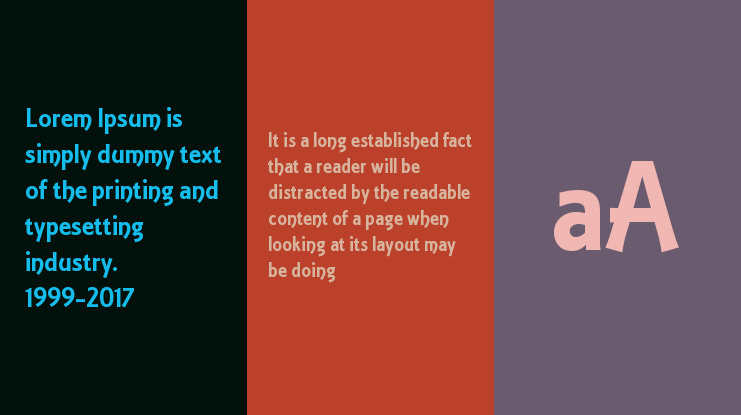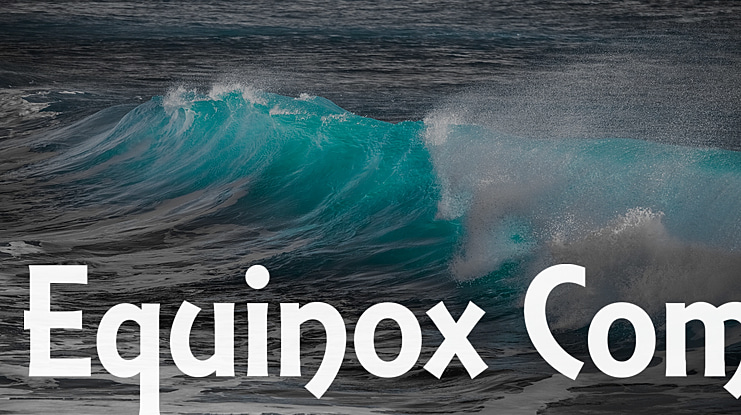
Equinox Com Font
Vince Whitlock
Equinox is the work of British designer Vince Whitlock. This lighthearted typeface is extremely versatile due in part to its array of alternative characters.
Equinox should be set with tight letter and word spacing for maximum visual impact.